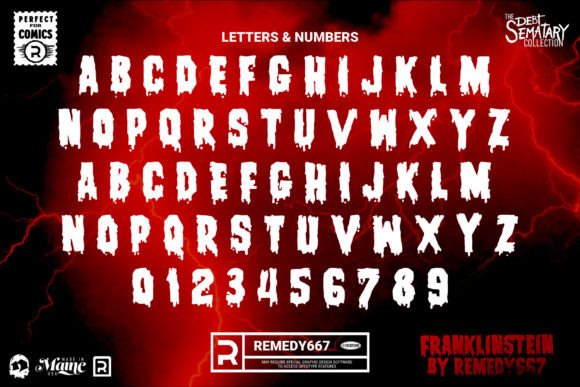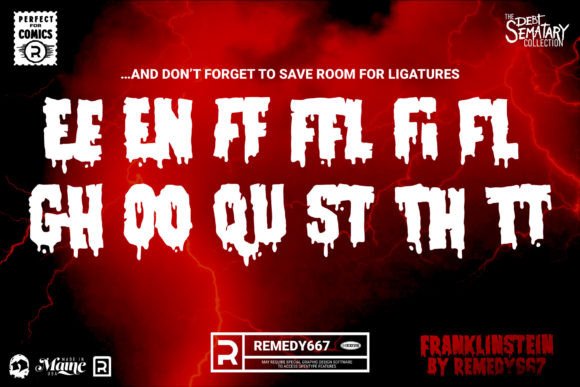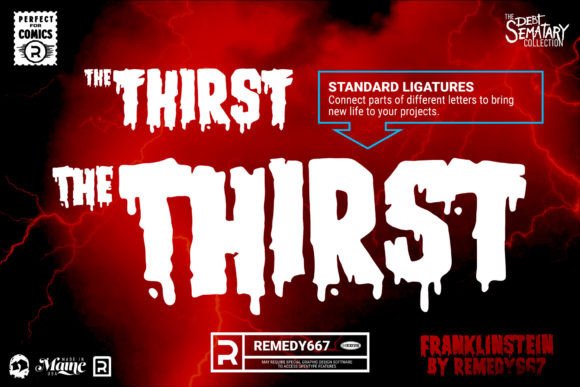
Introduction to Franklinstein Font
You’re sitting at your desk, staring at a blank canvas, trying to conjure up the perfect design for your horror movie poster. The clock is ticking, and you’re starting to feel like Frankenstein’s monster – cobbled together from disparate parts, but somehow missing that spark of life. That’s when you stumble upon it: the Franklinstein Font, a quirky, electrifying typeface that’s sure to bring your creative project to life.
This font is no ordinary design resource – it’s a high-quality, free download that’s perfect for film, comics, posters, t-shirts, and all sorts of other horror-inspired projects. With its transparent background and range of special features, including ligatures and stylistic alternates, the Franklinstein Font is a valuable tool for designers looking to add a touch of classic Hollywood flair to their work.
Key Features of Franklinstein Font
- Unique Gothic-inspired design with a spooky twist, perfect for creative projects and Halloween-themed designs.
- High-quality font with transparent background, ideal for designers who want to add a touch of elegance and sophistication to their designs.
Honest Review: Franklinstein Font
As a designer, I’m always on the lookout for unique and high-quality fonts to elevate my creative projects. The Franklinstein Font caught my eye, and I decided to give it a try. Here’s my honest review.
What works well: ✨ I love the quirky and spooky vibe of the Franklinstein Font. It’s perfect for Halloween-themed projects or anything that needs a touch of whimsy. The font is also highly customizable, allowing me to adjust the size, color, and even add a transparent background to suit my design needs.
What doesn’t work well: ⚠️ The Franklinstein Font can be a bit too ornate for some projects. I found that it can be overwhelming if used as the primary font for a design. Additionally, the font is not ideal for small text, as the details can get lost.
Overall impression: I’m really impressed with the Franklinstein Font. It’s a fantastic design resource that can add a unique touch to any project. While it may not be suitable for all projects, I appreciate its versatility and high quality. I’d definitely recommend it for creative projects that need a bit of flair.
- Unique and quirky design
Cons:
- Can be overwhelming for some projects
- Not ideal for small text
The Franklinstein Font is perfect for creative projects, such as graphic design, web design, and digital art. Its high-quality design makes it ideal for use in logos, typography, and other design elements.